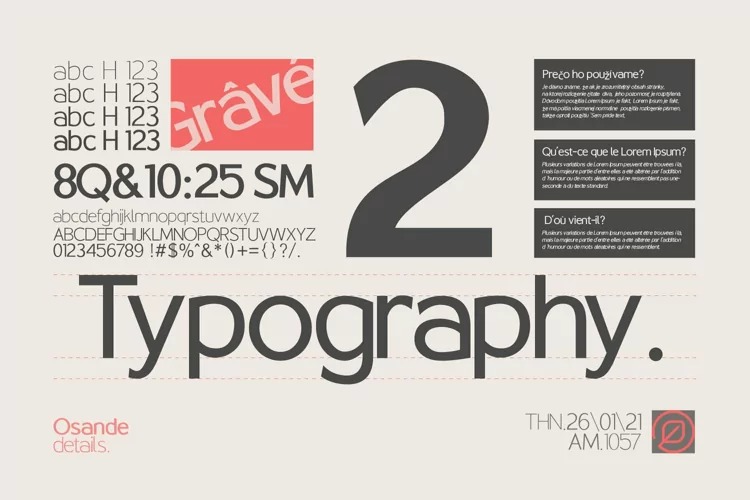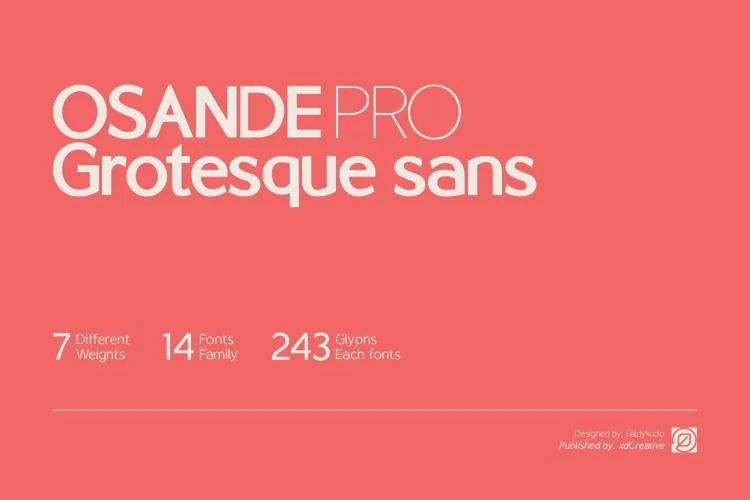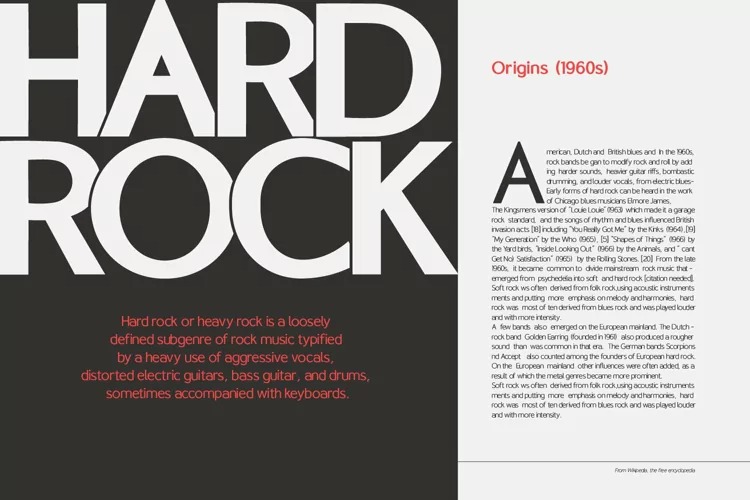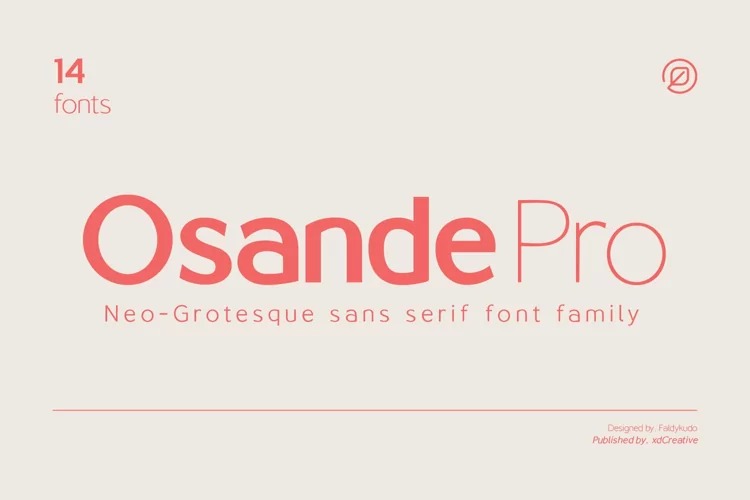
Osande Font
Osande Sans Serif Font is sans serif typeface sporting a retro look with edgy cuts and turns.
Osande the font family contains 3 basic forms: italics, obliques and uprights, Each of which has 7 different weights ( Thin, Extra light, Light, Regular, Medium, Semi bold and Bold ).
Osande Perfectly suited for graphic design and any display use ( for the logos, t-shirts, the web as well as for print, and also great for headings),